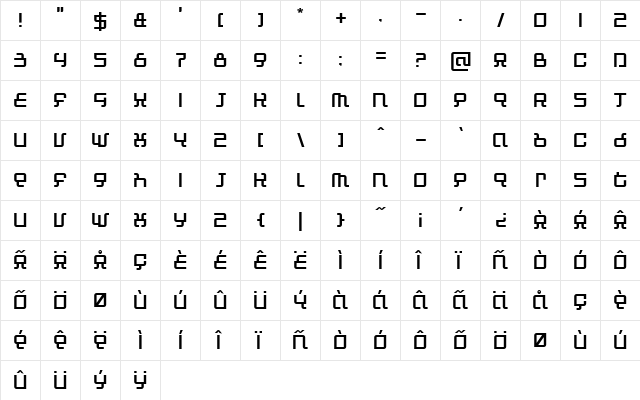
Automind Regular
| Designer | Andreas Nylin |
Design Context for Automind Typeface
Automind offers clean, dependable letterforms without strong stylistic allegiance, making it a practical choice for designers who need flexibility.